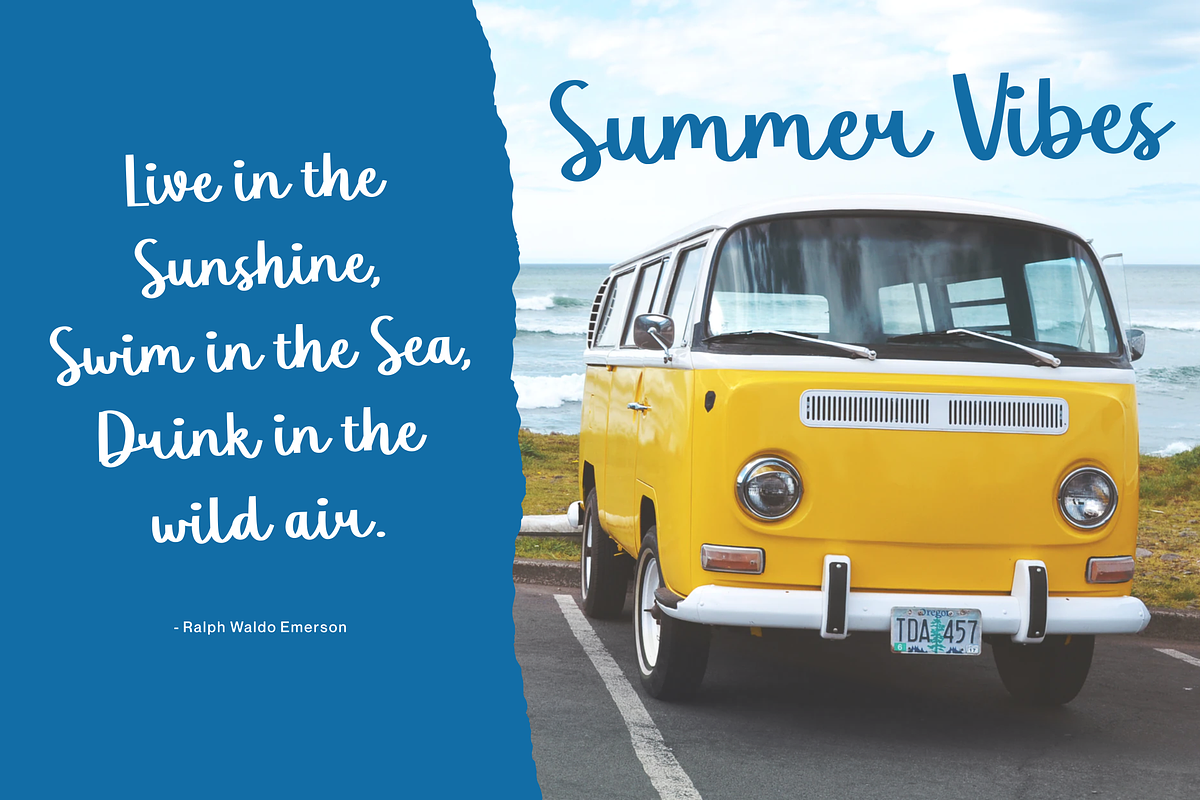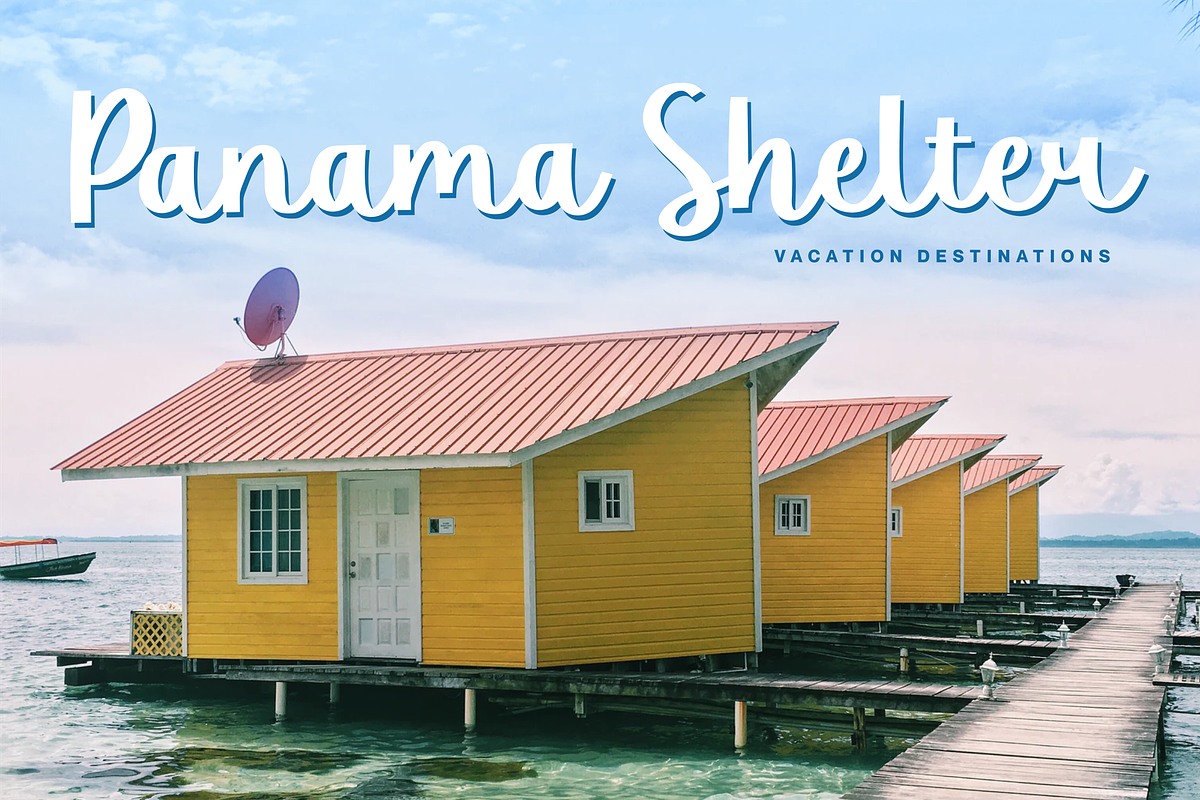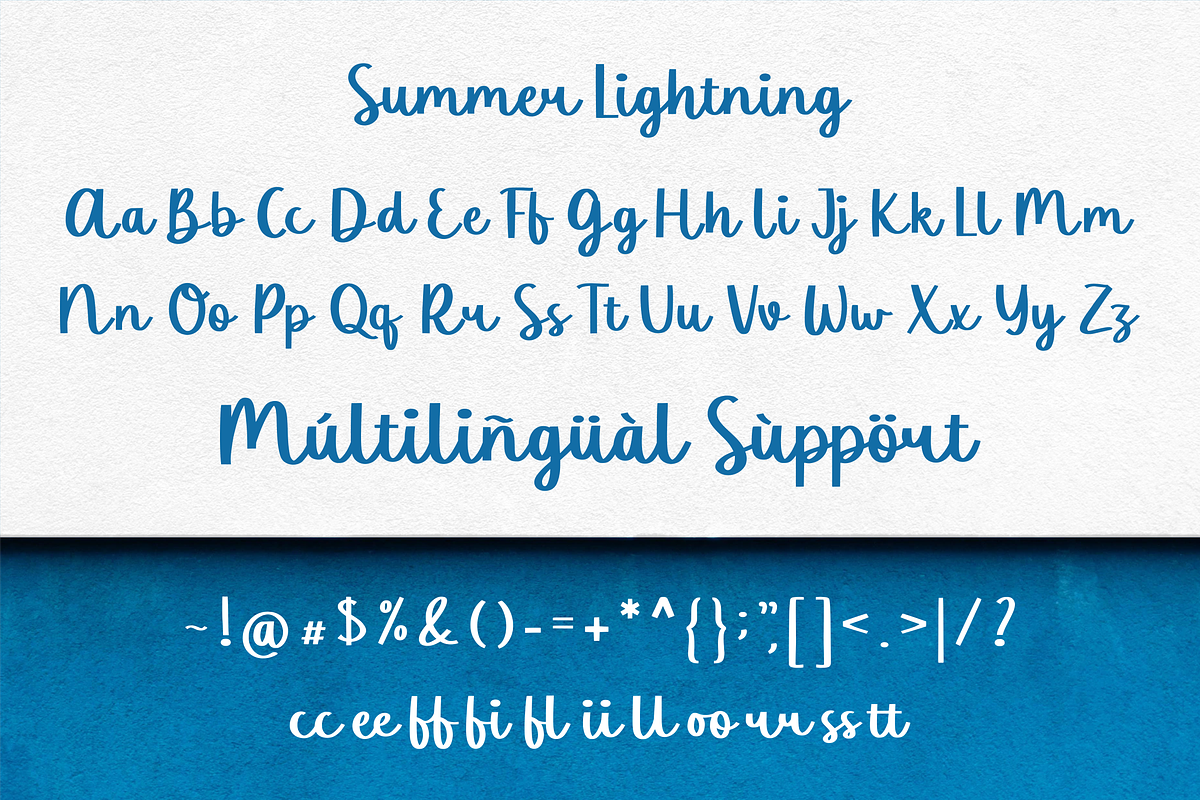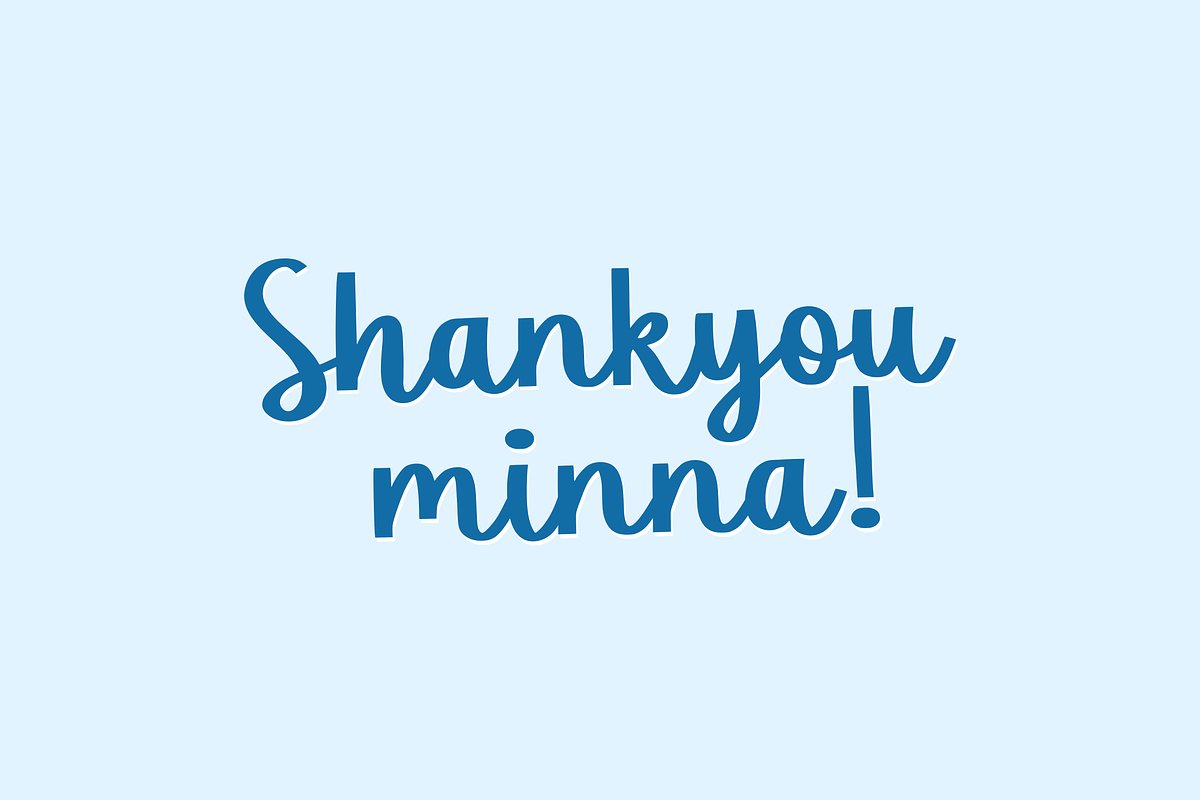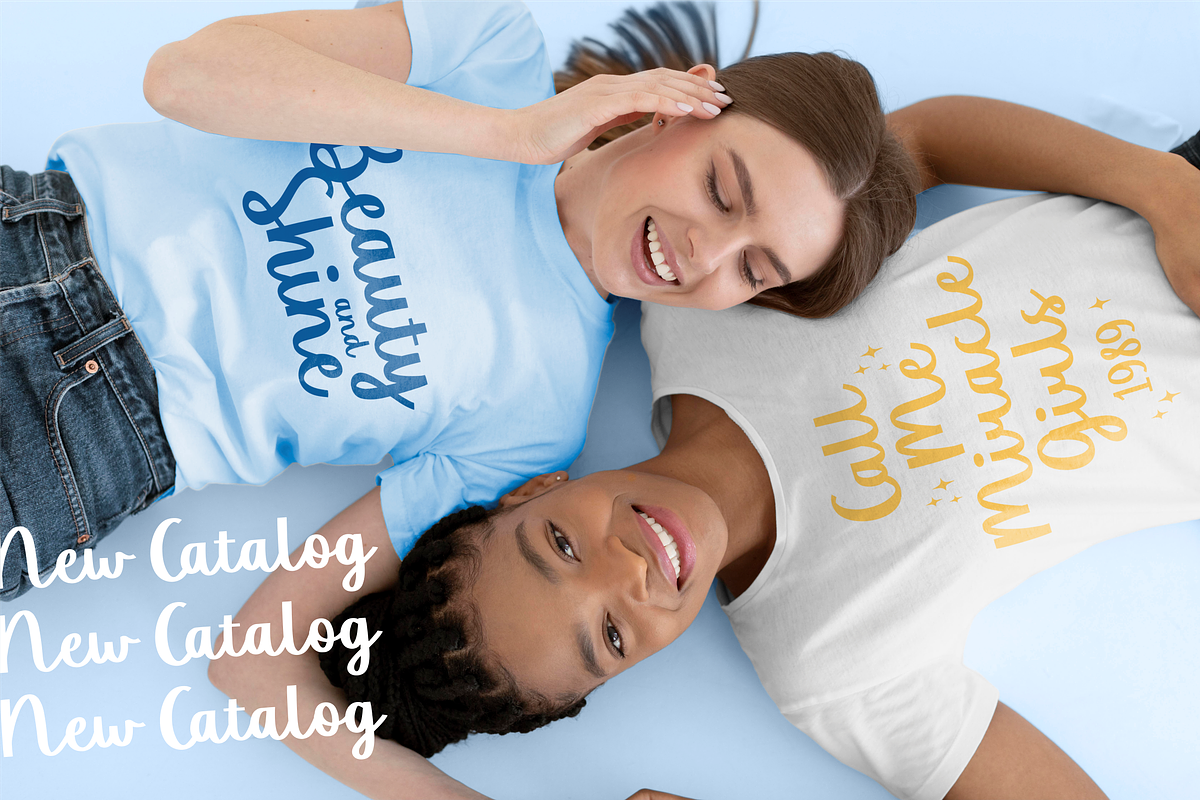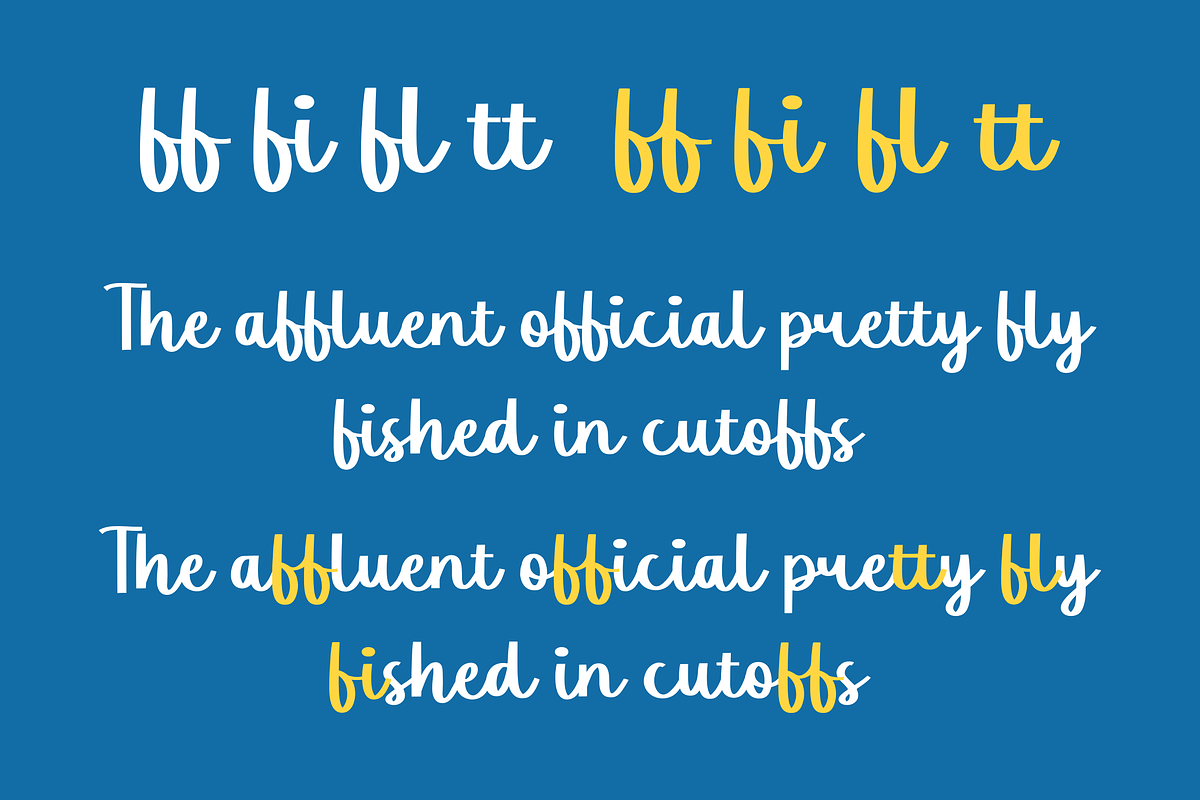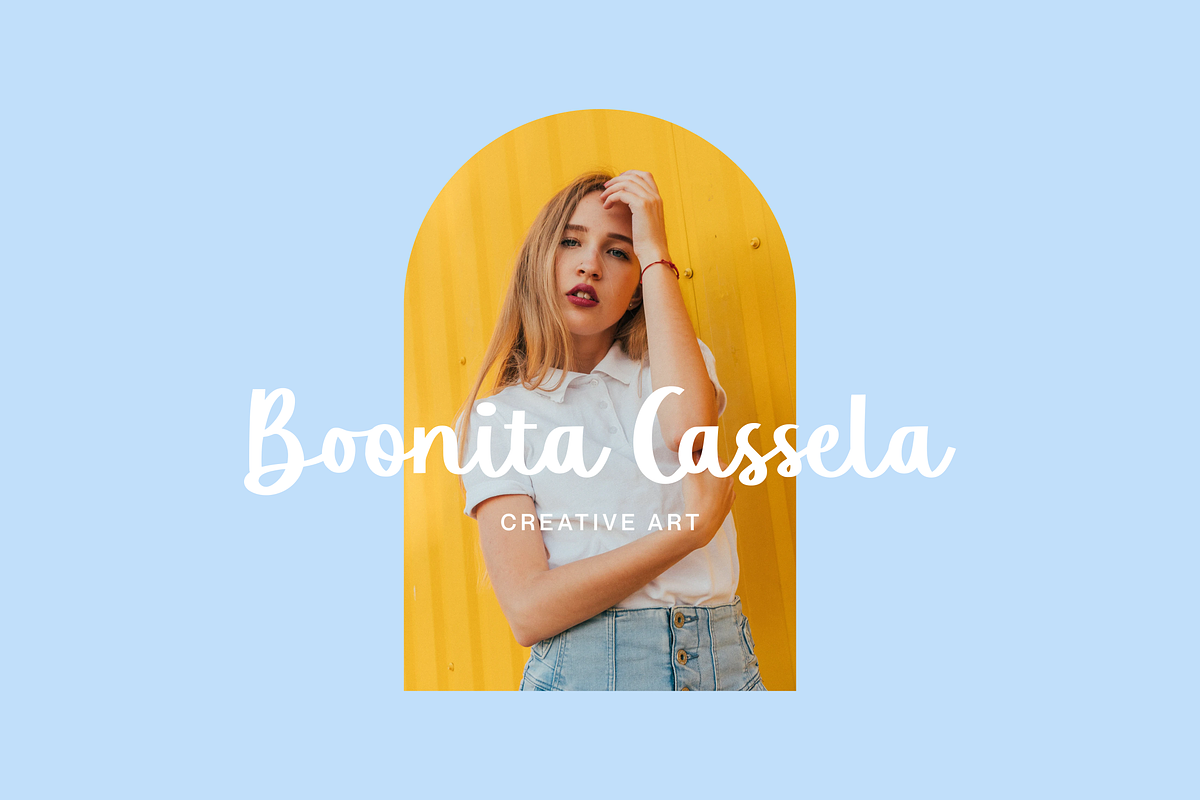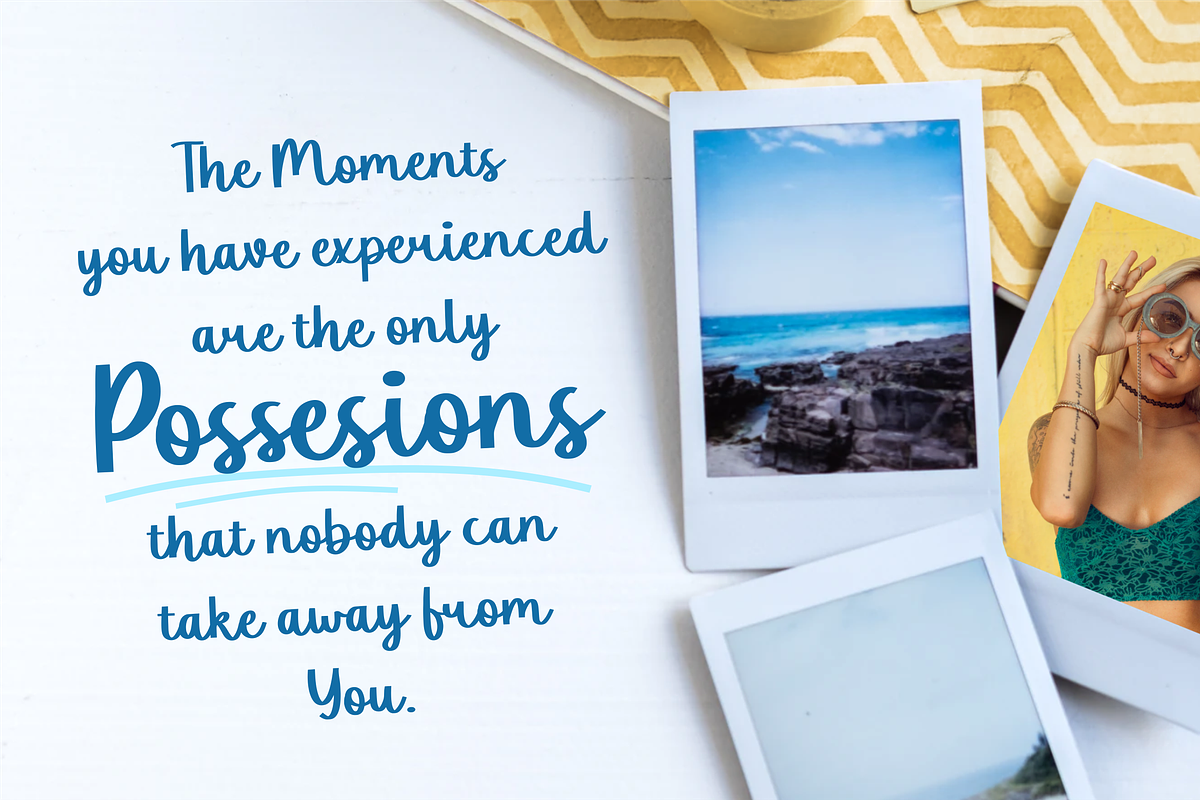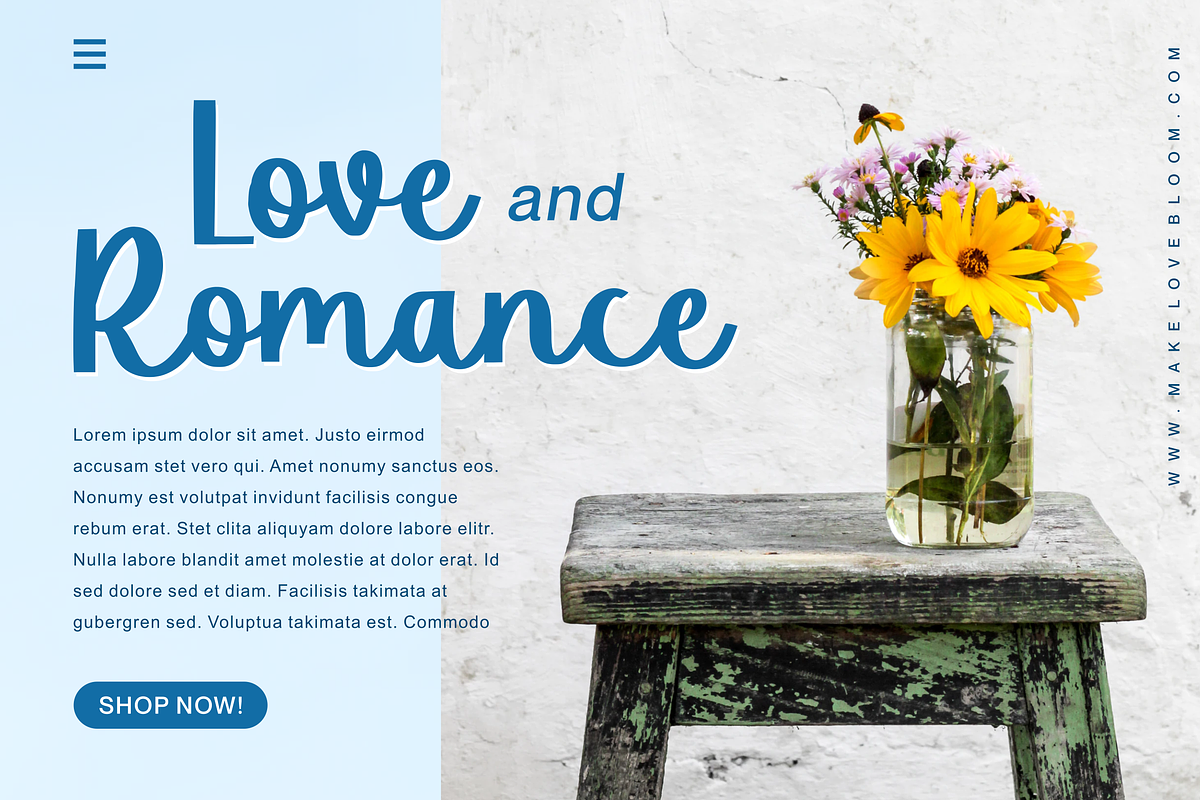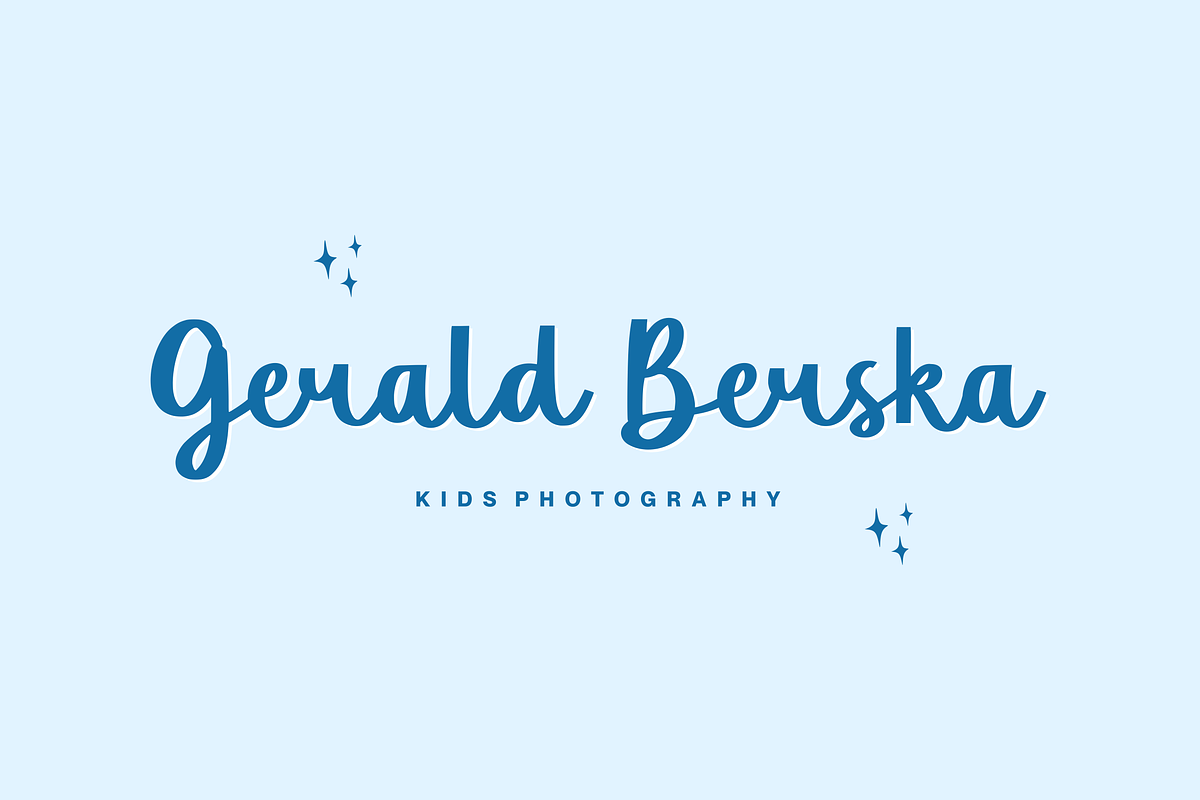
Summer Lightning Font
Proudly Present, Summer Lightning
Summer Lightning is a Handwritten Font.
Summer Lightning is perfect for product packaging, branding project, megazine, social media, wedding, or just used to express words above the background.